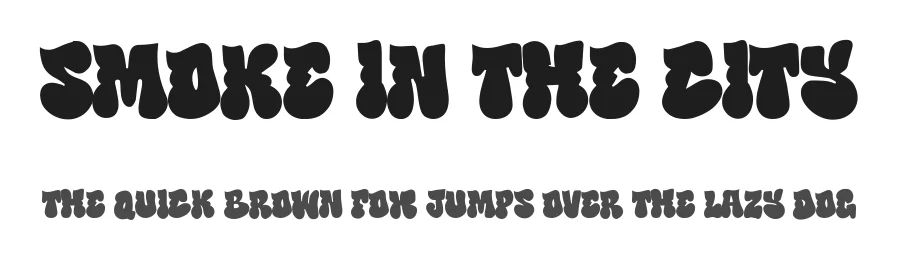
About Street Urban Font
| Designer | Bangkit Tri Setiadi |
Street Urban Font is a script font that shines as a display or heading face. Pair it with a clean sans-serif or serif font for body text β the contrast creates a clear hierarchy while the two styles stay balanced and easy to read.
Street Urban Font
by Blankids